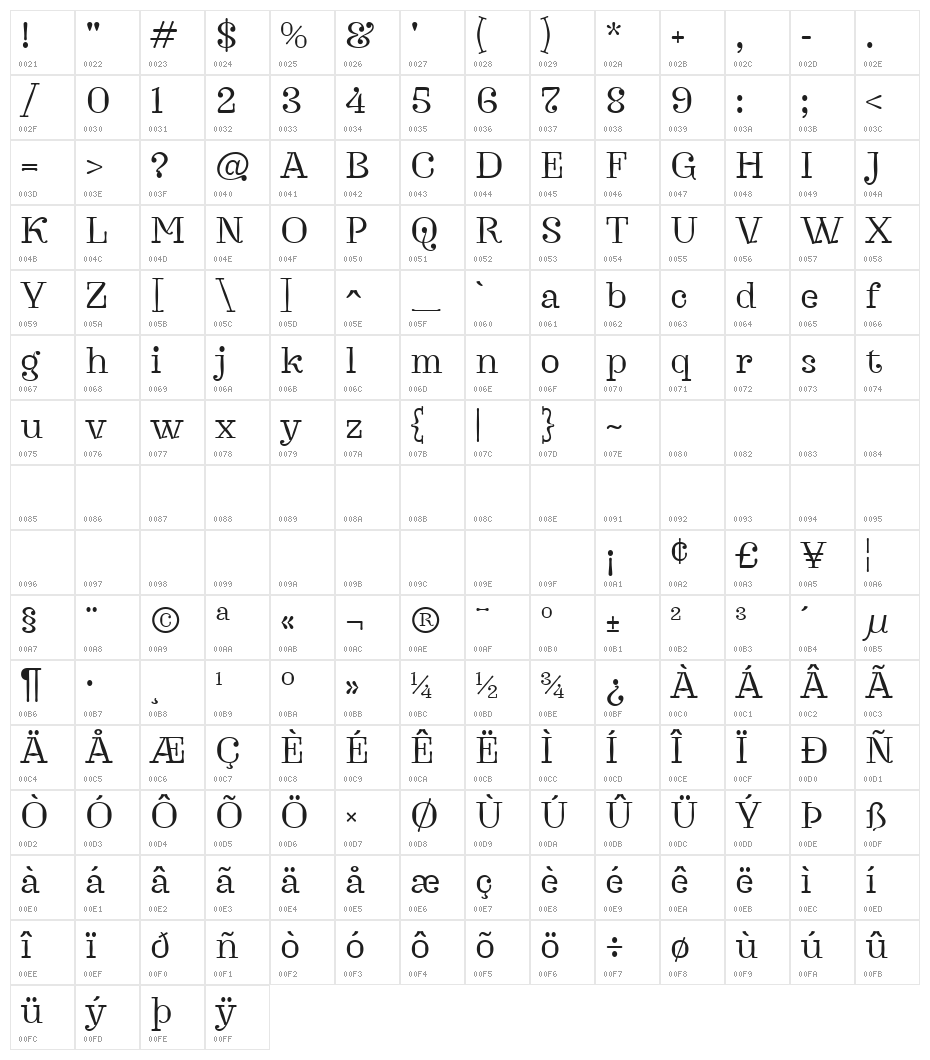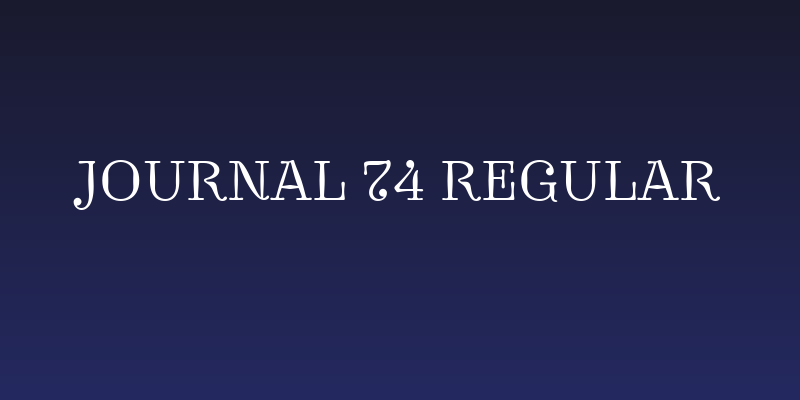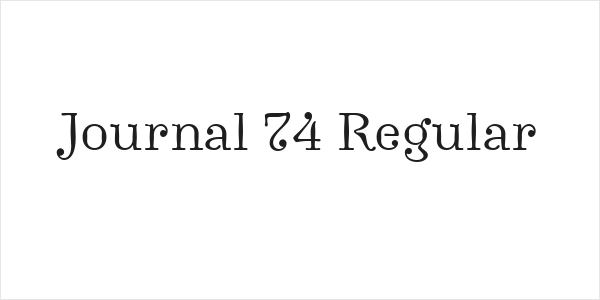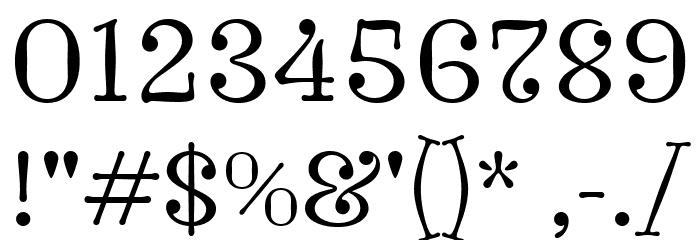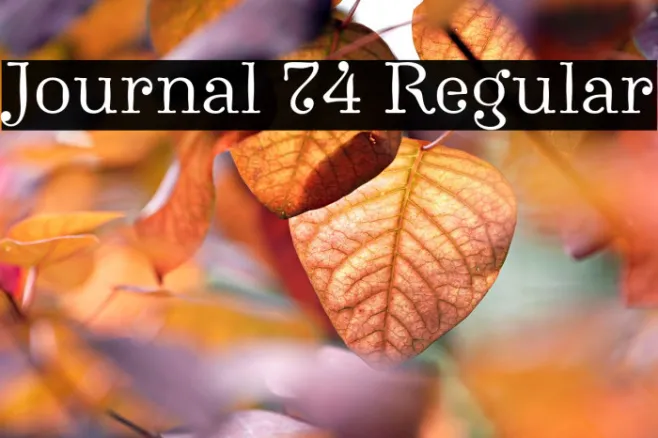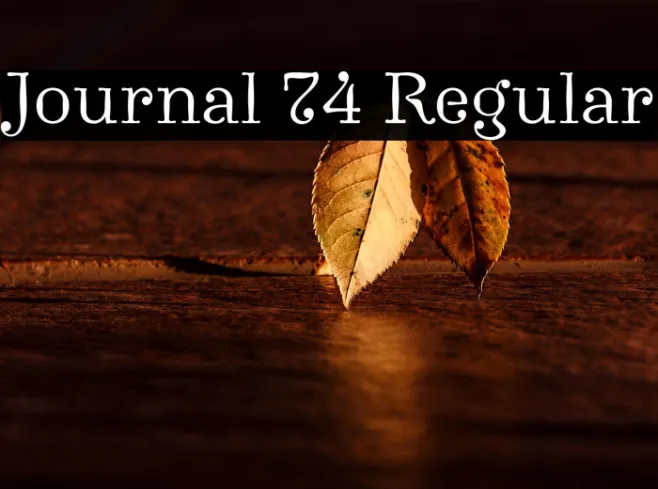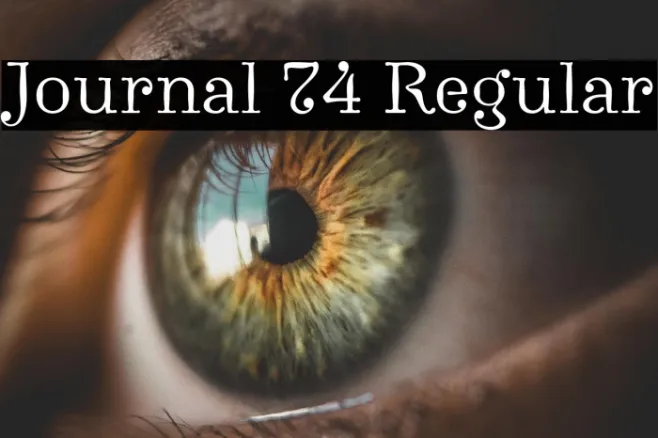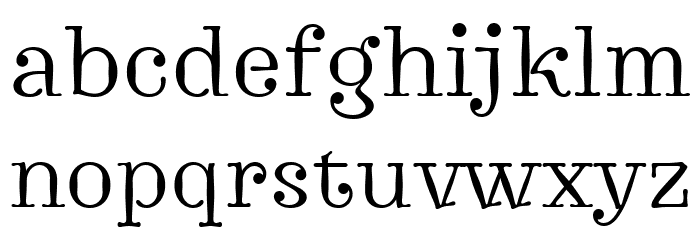
Journal 74 Regular Font
Journal 74 Regular Description
This font exhibits a classic serif style with a touch of elegance and sophistication. The characters are well-defined with prominent serifs, giving them a traditional and authoritative appearance. The uppercase letters are bold and commanding, while the lowercase letters maintain a consistent flow with slightly rounded edges. The numerals are clear and easy to read, featuring a balanced design that complements the overall aesthetic. Special characters are distinct and maintain the font's cohesive style. The font's design is suitable for conveying a sense of reliability and professionalism, making it ideal for formal documents and editorial content.
| Use Case | Editorial content, Formal documents, Book covers |
| Proposed Projects | Ideal for editorial content, formal documents, book covers, and branding materials. |